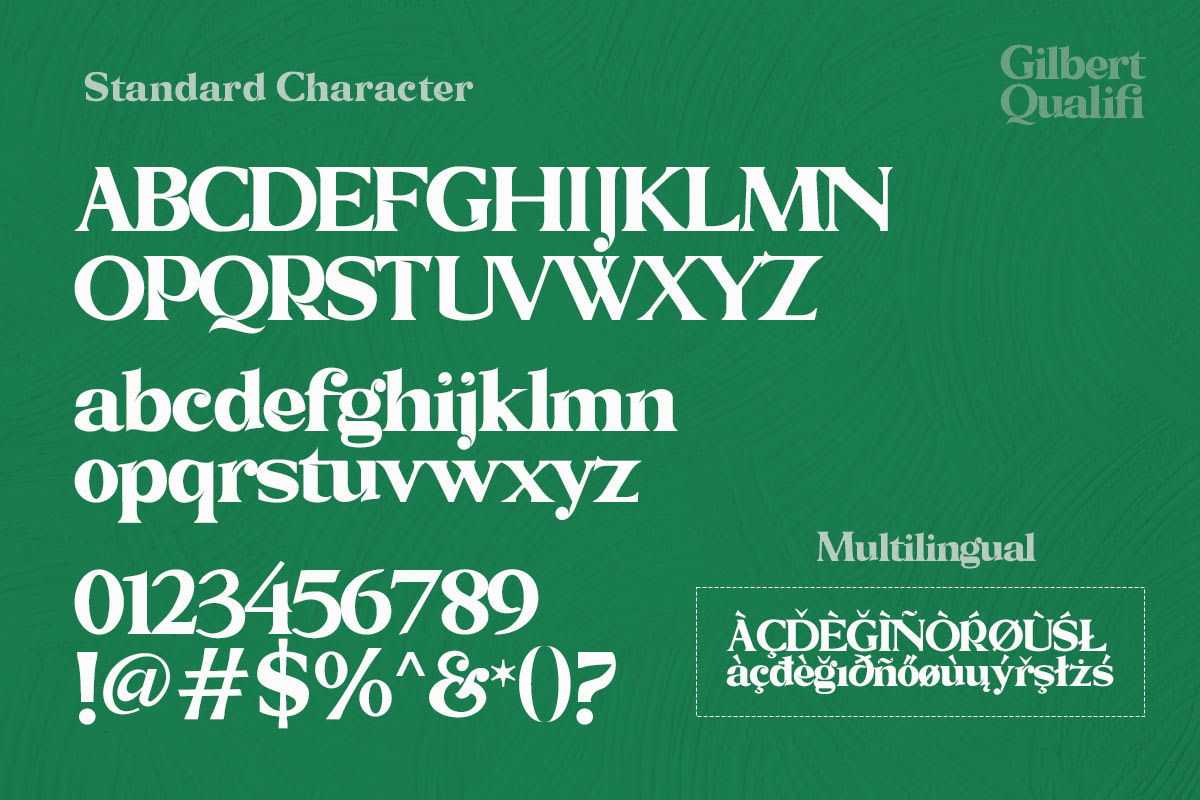
Gilbert Qualifi
Gilbert Qualifi, from Embun Studio, is a classy modern & clean serif font. This font will make any desired design project stand-out with a gorgeous, playful, elegant touch! Whether you have a client that needs a new chic logo, you're designing your social media posts, or maybe you're preparing your wedding mood board, stationery, invitations, Gilbert Qualifi font is perfect for all your needs and more!